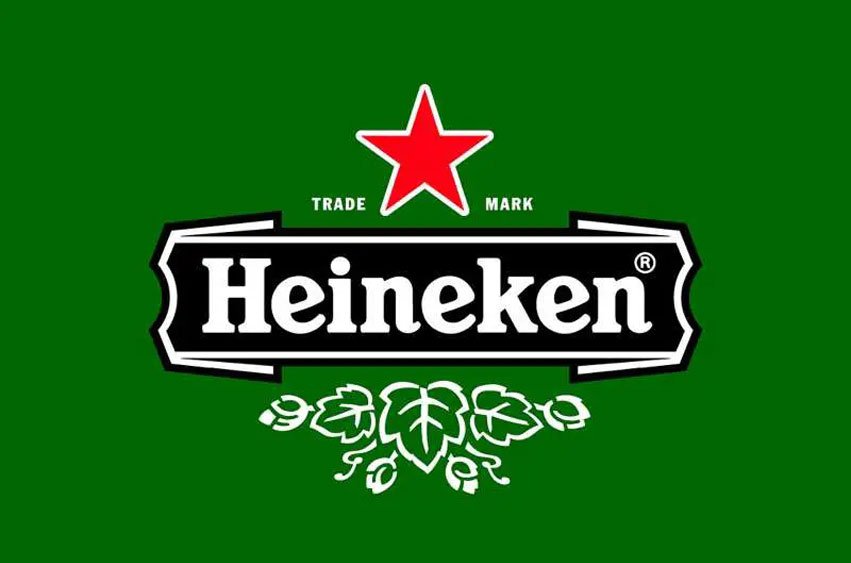
Heineken Font is the font used in the logo for Heineken Breweries of Amsterdam, established by Gerard Adriaan Heineken in 1873. They feature two logos; The Authenticity logo and The Star Heineken logo (both can be found on coasters, glasses and beer bottles), with each including five-pointed red stars with “Heineken” written along the bottom edge.
Alfred Henry Heineken, great-grandson of the person who founded Heineken, reportedly created its wordmark with “e” letters being reversed so as to create an inviting logo that made for casual conversation among drinkers. Additionally, its font HEINEKEN closely resembles its use in this wordmark.